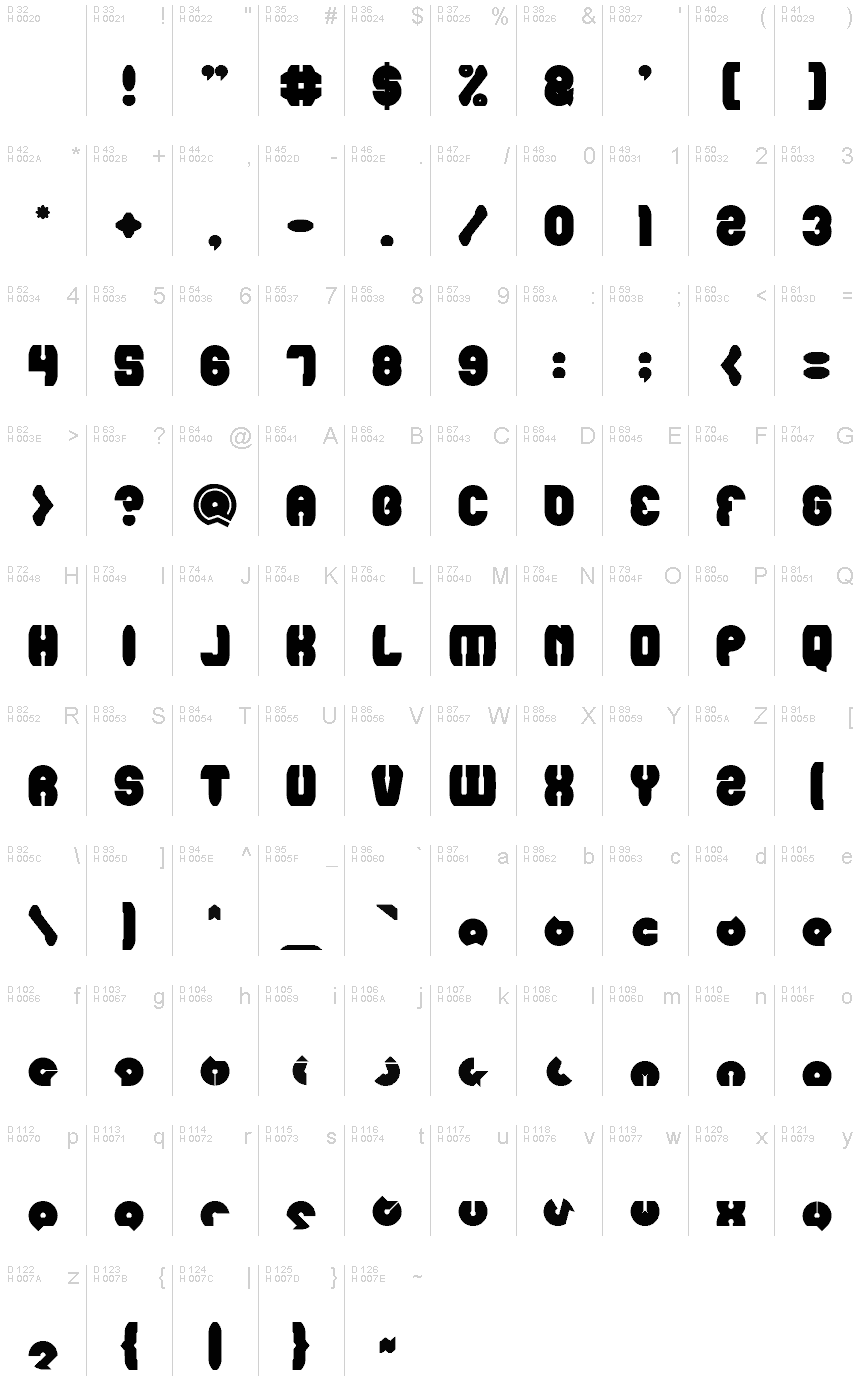
mohr Bold
Mohr Bold is a captivating display font that exudes a groovy, techno-inspired aesthetic. Designed by Weknow, this expanded, bold typeface commands attention with its striking circular forms and distinctive visual flair.
The clean, geometric shapes and solid, yet dynamic lines of Mohr Bold lend it a decidedly modern, high-tech vibe, making it an ideal choice for a wide range of design applications, from digital interfaces and branding to event posters and editorial layouts. Its bold, expanded proportions give it a strong, impactful presence, while the subtle curvatures and playful details infuse the font with a sense of energy and vibrancy.